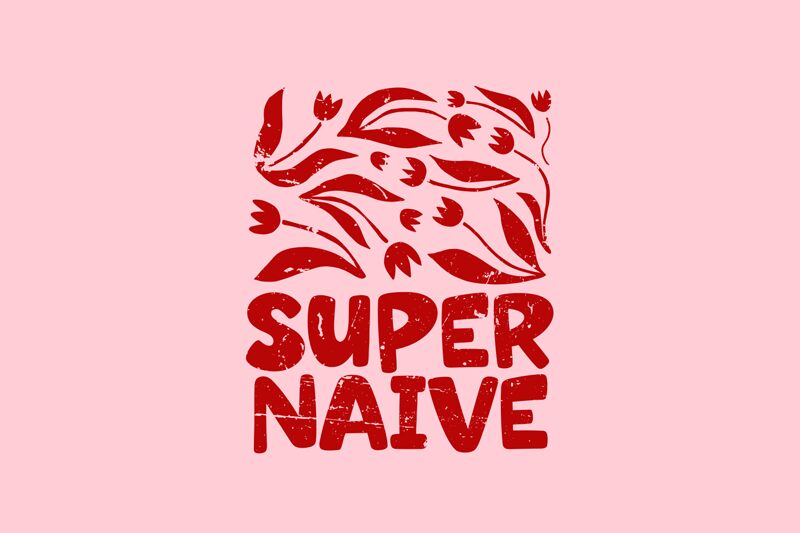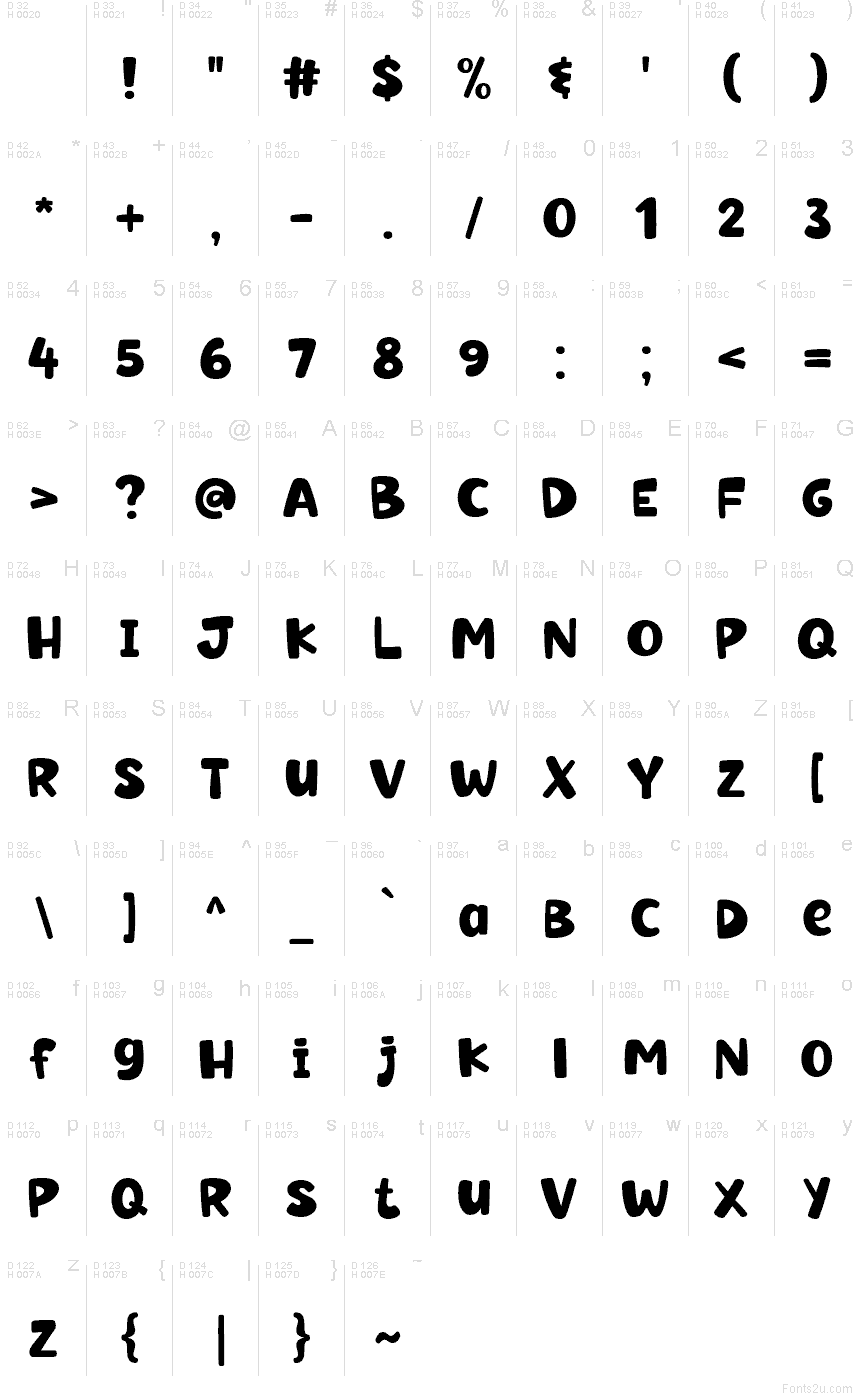
Super Naive
Super Naive font by fsuarez913 is a free cartoon display typeface that looks hand-squished and delightfully wobbly, like letters molded from soft clay. Chunky forms, bouncy rhythm, and slightly uneven curves give it a childlike honesty that feels instantly friendly and approachable. The bold, inky shapes hold up at large sizes without losing their playful, homemade charm.
Using Super Naive, your titles jump off the page with a goofy grin that suits kids’ books, birthday invitations, classroom posters, comic strips, playful logos, and game interfaces. This free font works beautifully where you need big, loud, and lovable lettering that doesn’t take itself too seriously. For balance, pair Super Naive with a clean, simple sans serif in smaller text to let its chunky personality handle the headlines.